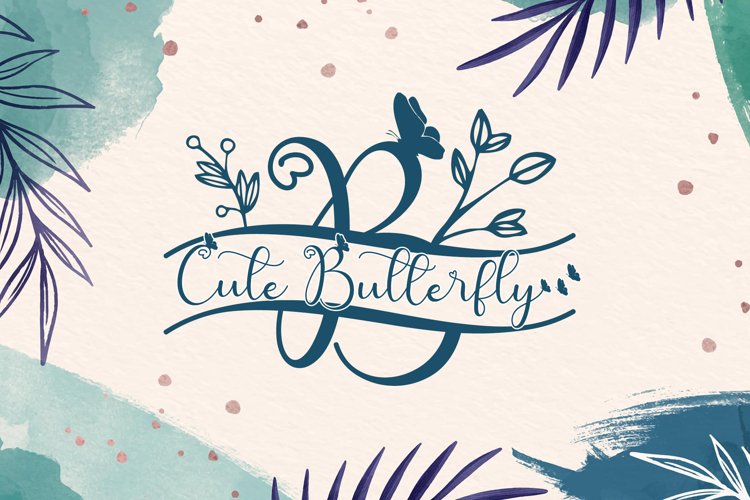
Cute Butterfly Monogram is a beautiful script font with a romantic theme, featuring lovely ornaments. Fall in love with its authentic feel and use it to create gorgeous wedding invitations, thank you cards, logos, business, branding, and every other design which needs a handwritten touch.